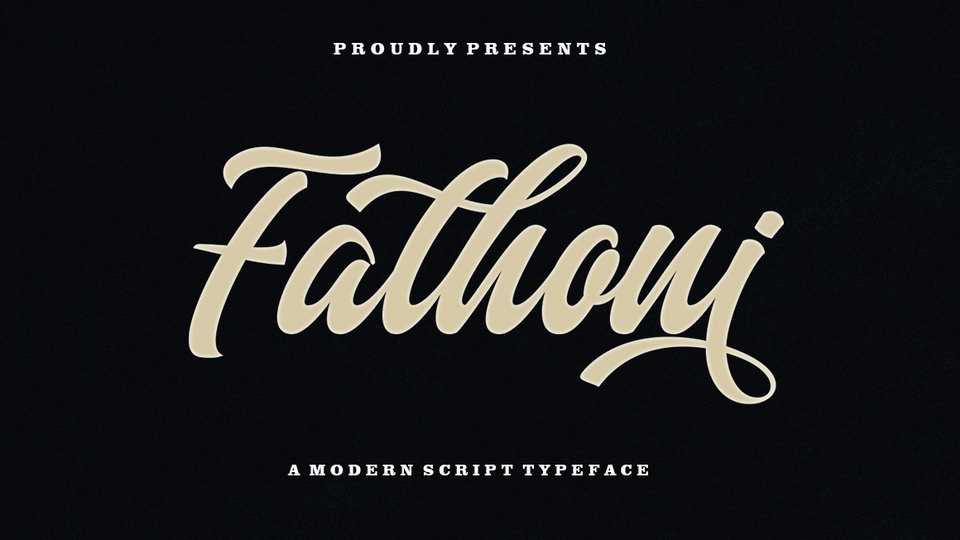
Download Fathoni font, a stylish handwritten modern calligraphy script. Work in harmony with Fathoni to create extraordinary calligraphy creations.
Designer: Letter Fresh Studio